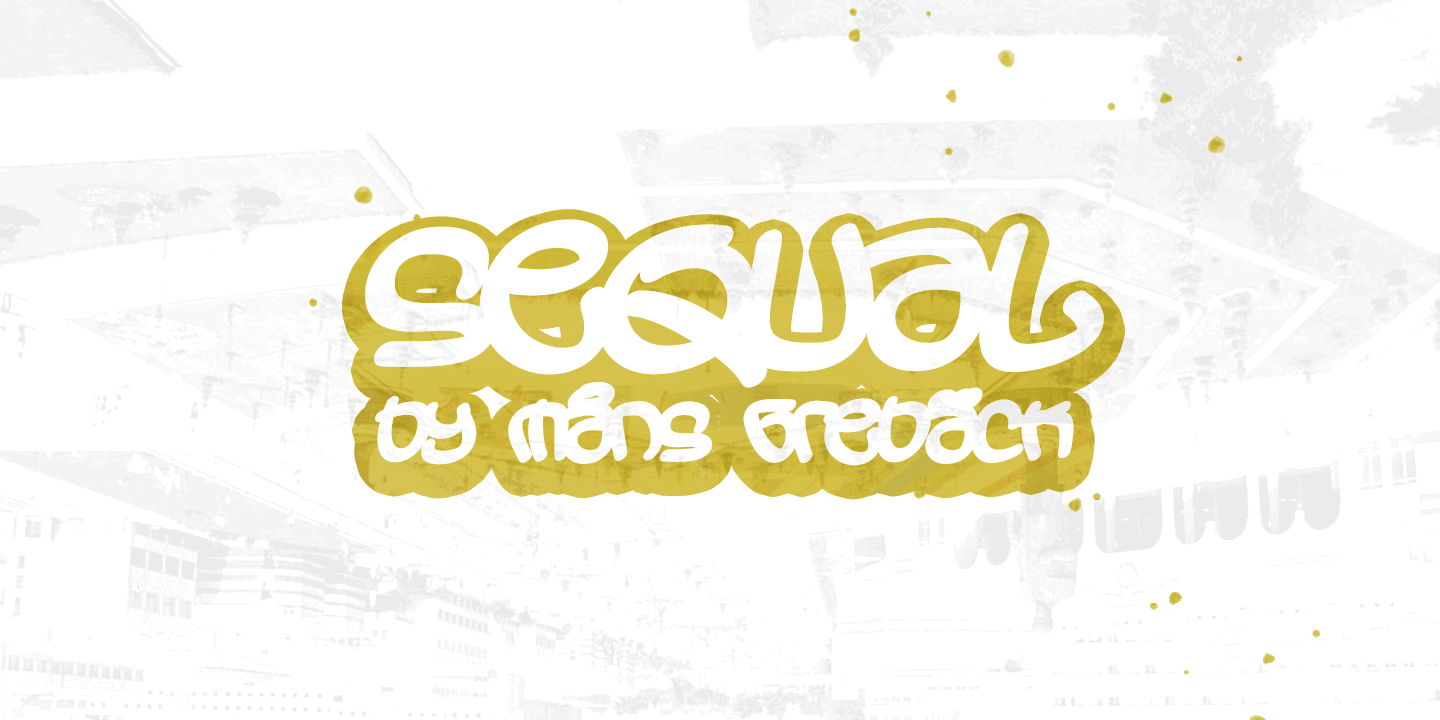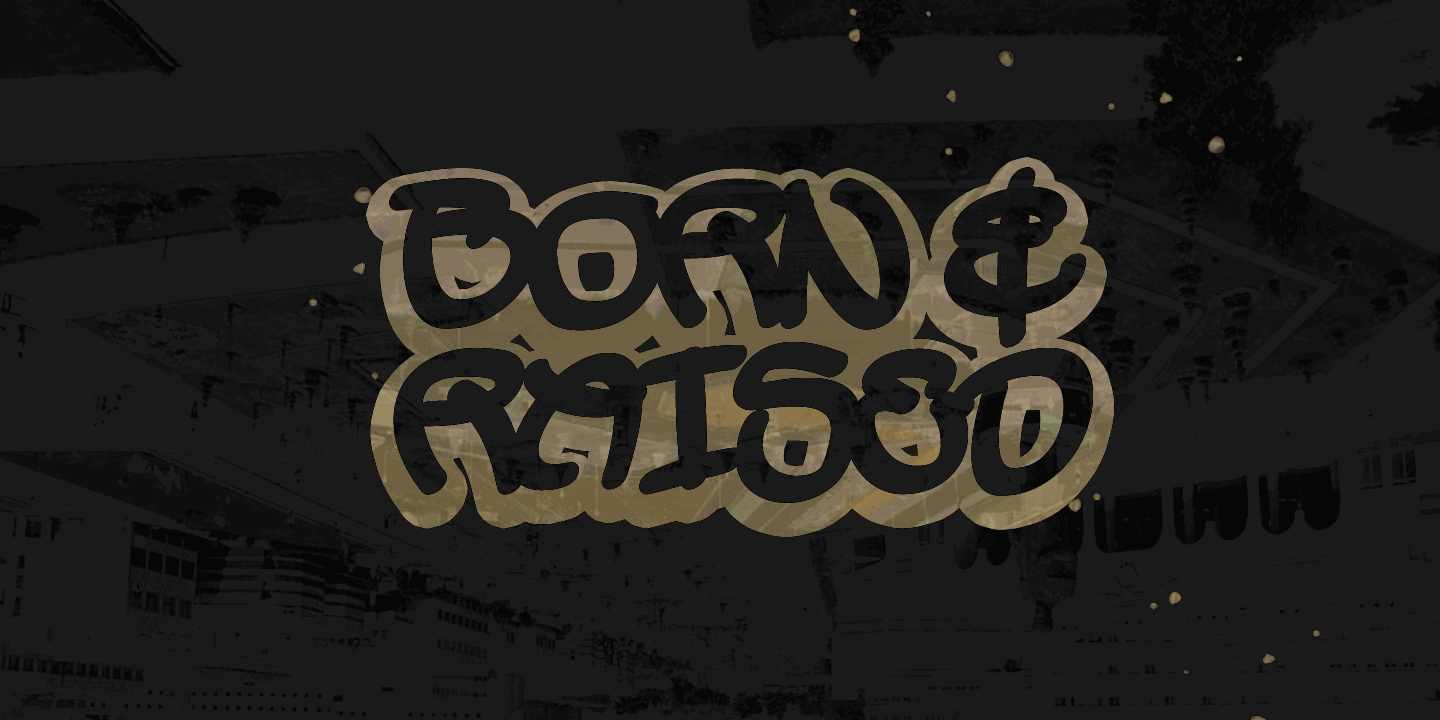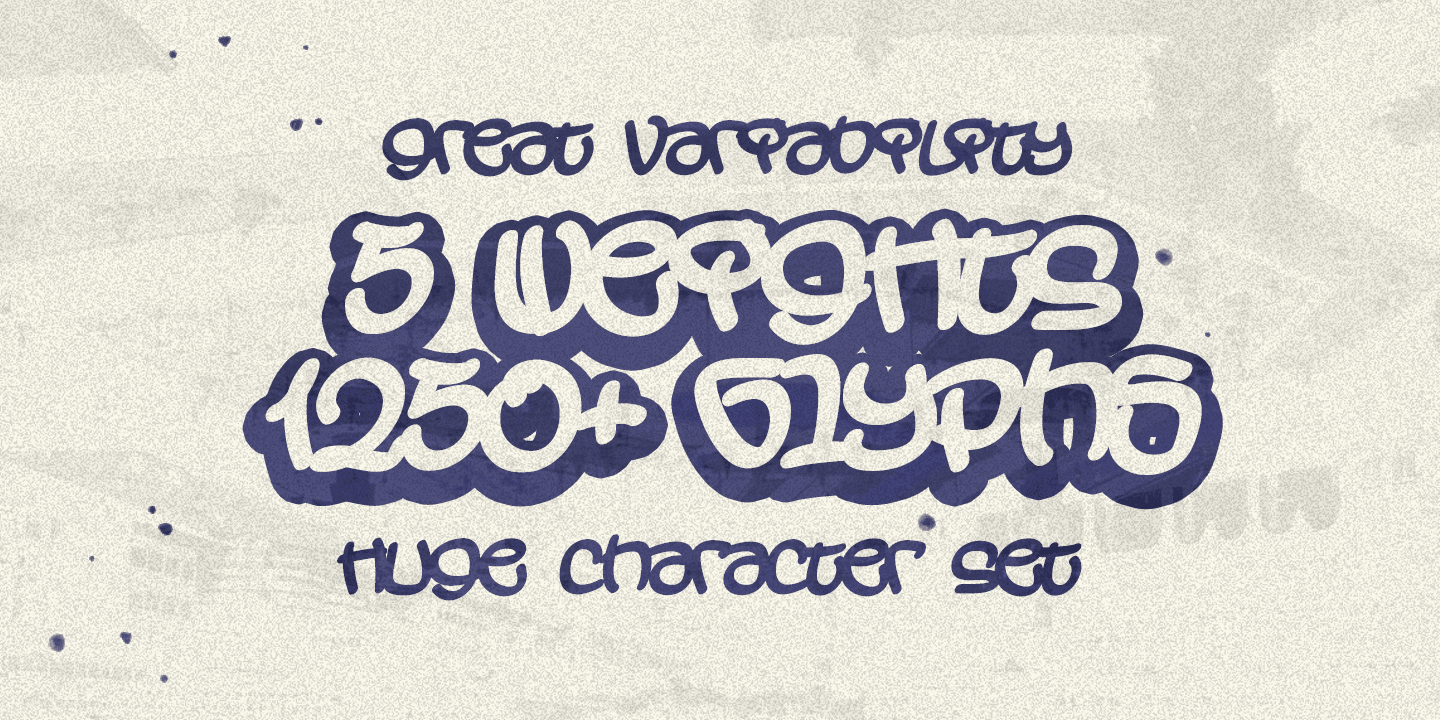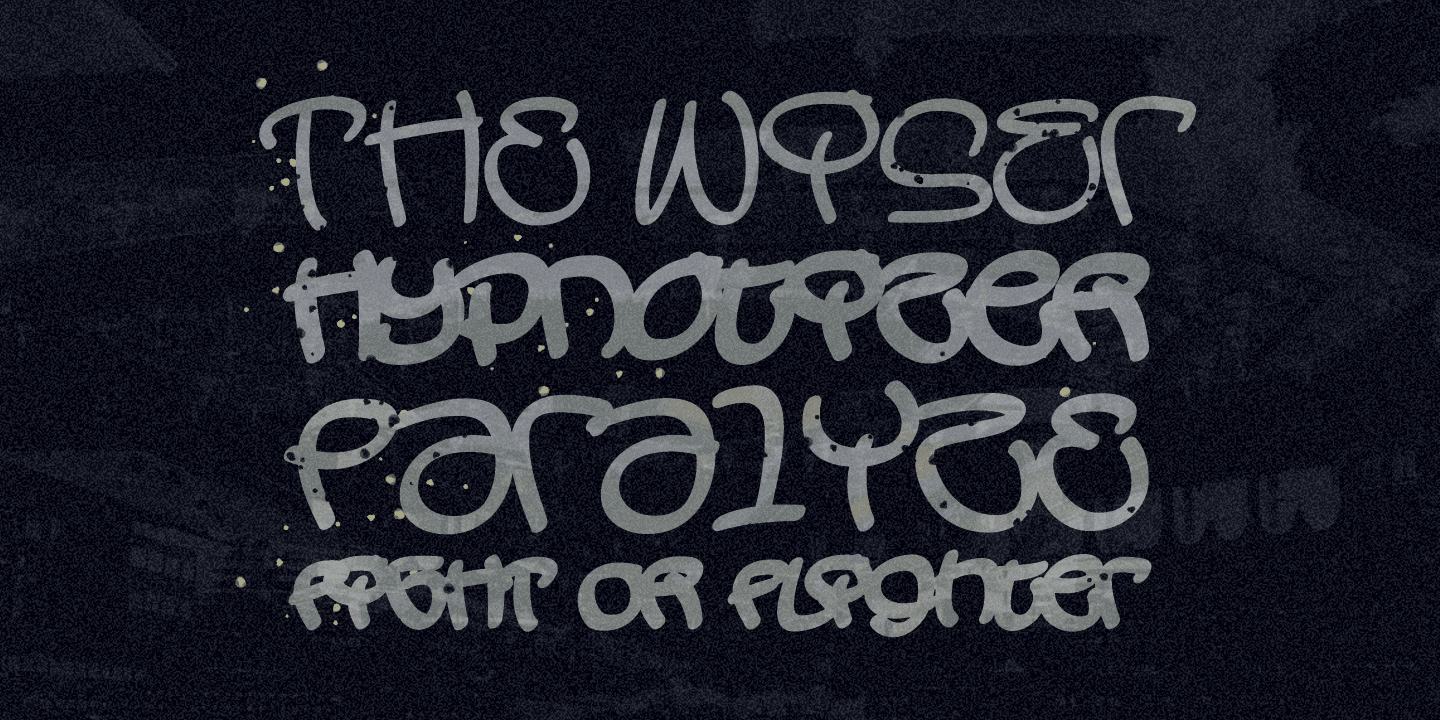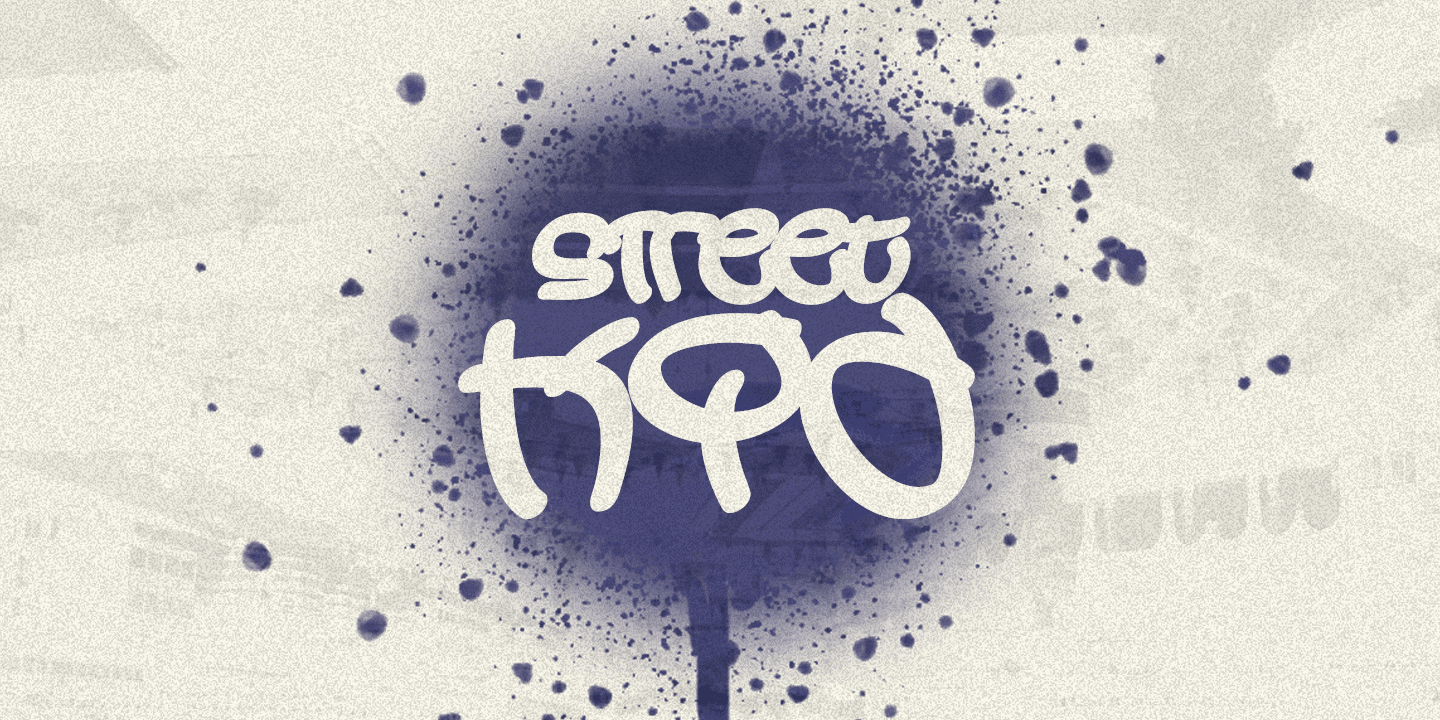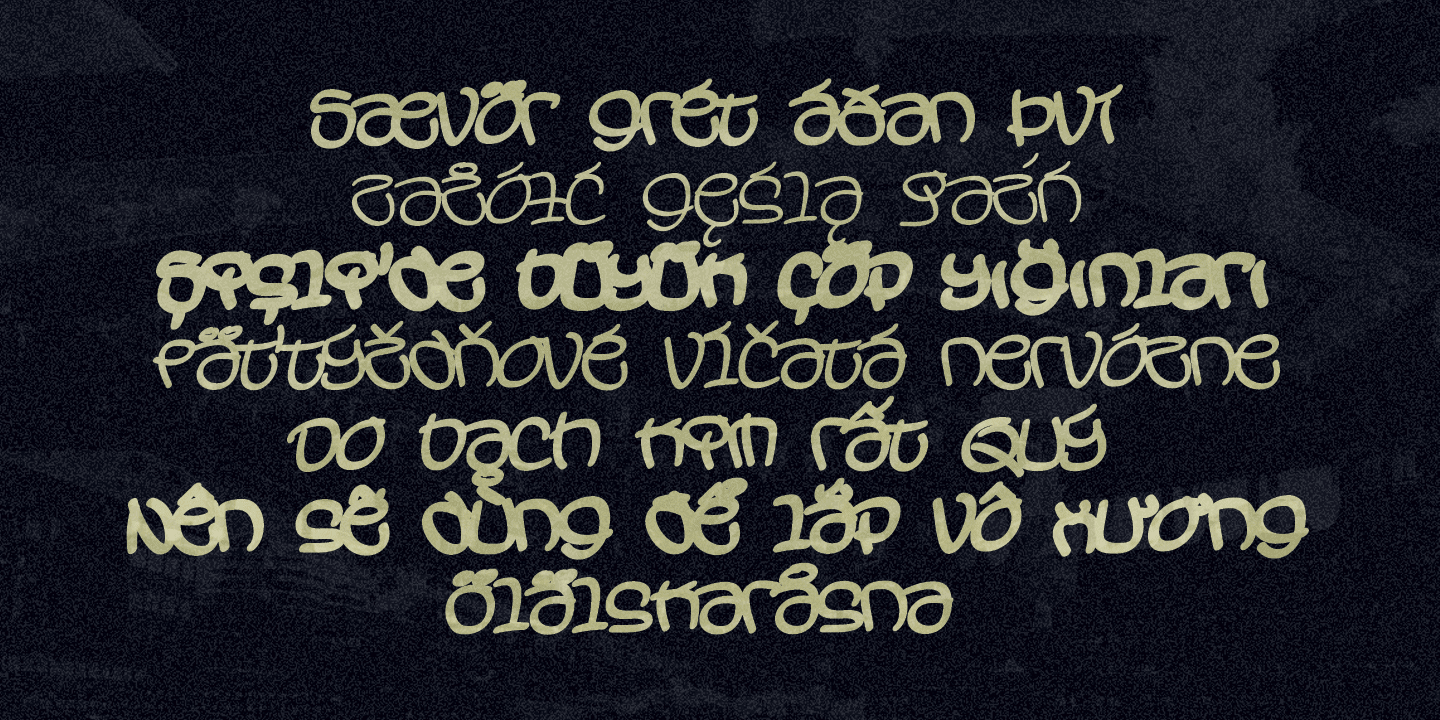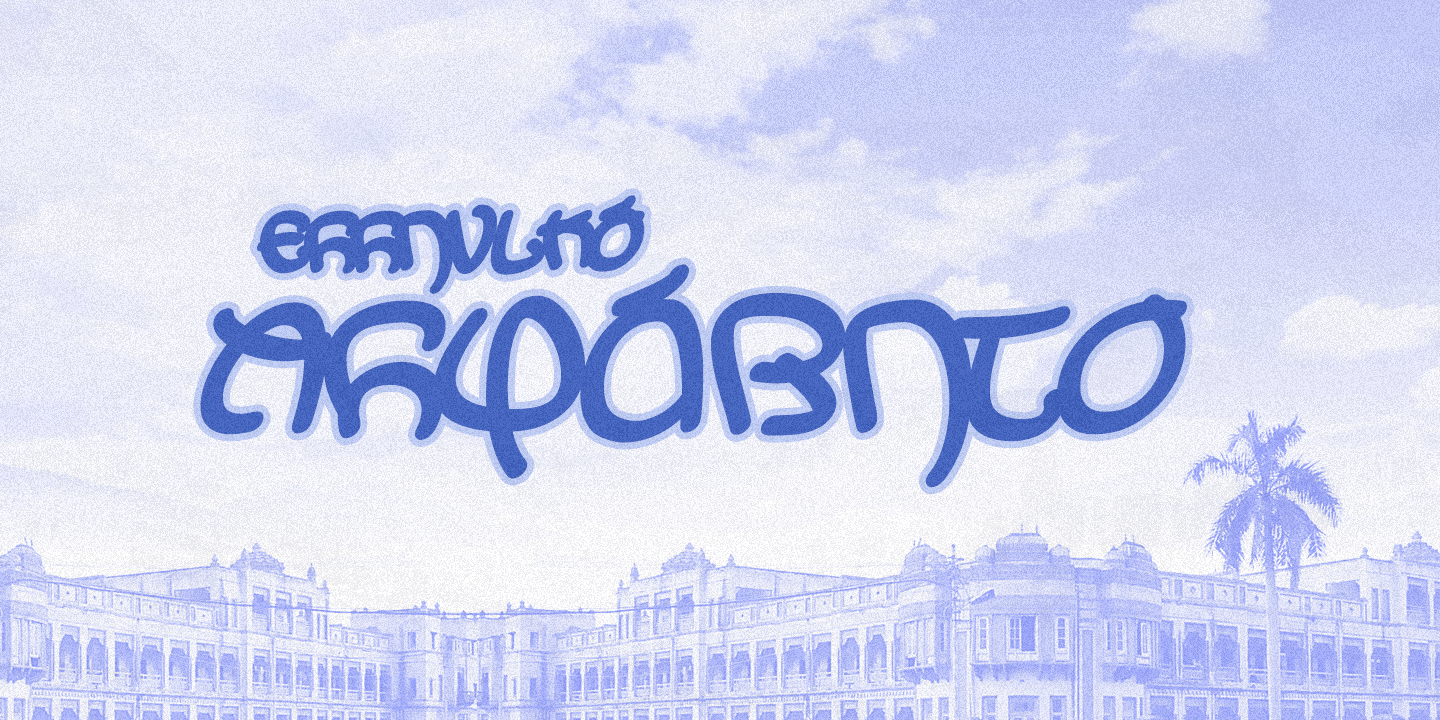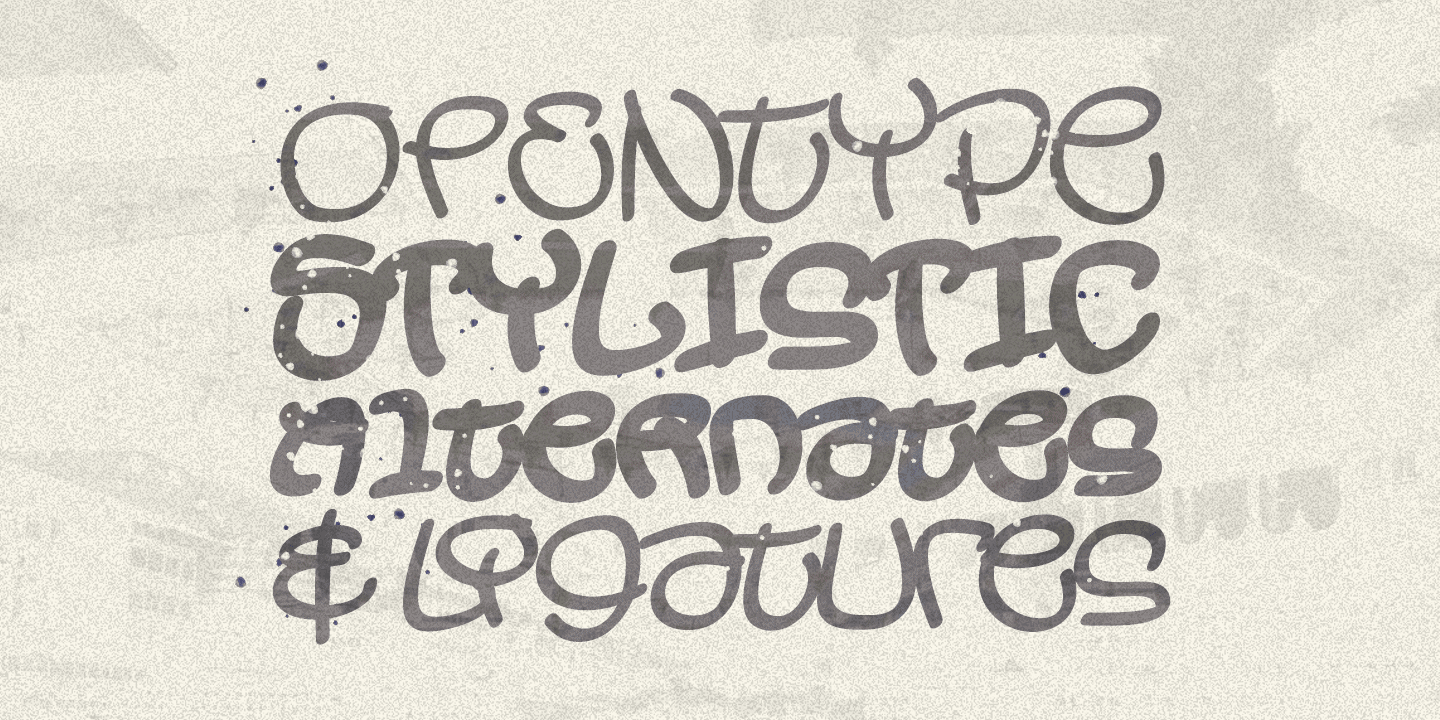
Sequal
Sequal is a handwritten graffiti tag script. It was drawn and created by Måns Grebäck between 2018 and 2020. Its round and soft letters are youthful and active, and cool while being cute.
Sequal is a typeface family of five weights: Thin, Light, Regular, Bold and Black. The font supports hundreds of languages, including European and Asian Latin scripts. Composed of over 1250 glyphs, it is guaranteed to contain all characters you’ll ever need, including all punctuation and numbers.